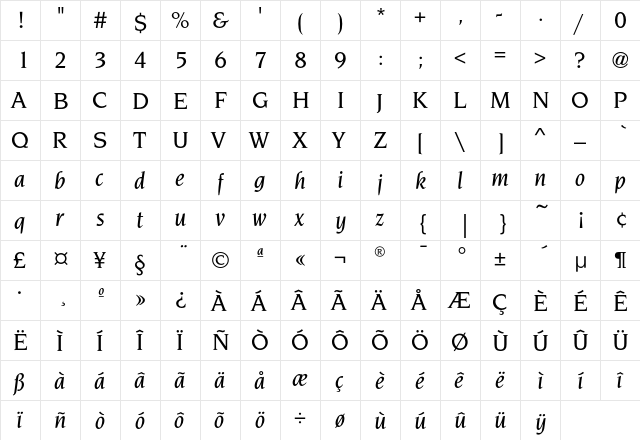
Design Context for NovareseEF-MediumItalic Typeface
NovareseEF-MediumItalic is a composed and adaptable typeface that performs quietly and consistently across a wide range of design contexts. The dynamic lean of this cut emphasises speed and emphasis in any layout.
Pro Tip: Try NovareseEF-MediumItalic for annotation and caption copy alongside an upright companion — the contrast in angle creates a dynamic but ordered typographic system.